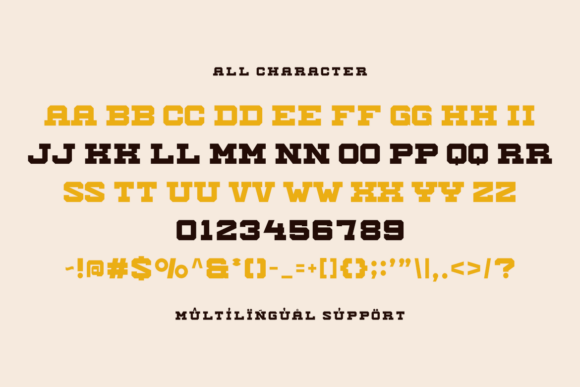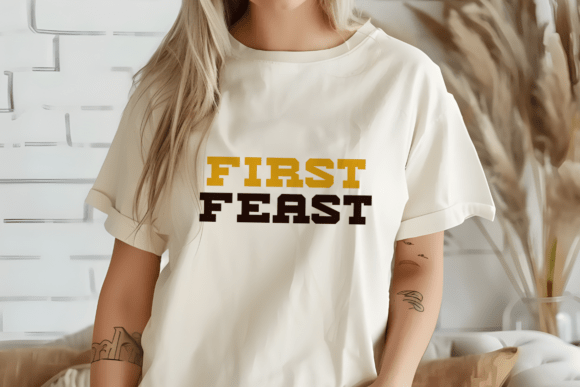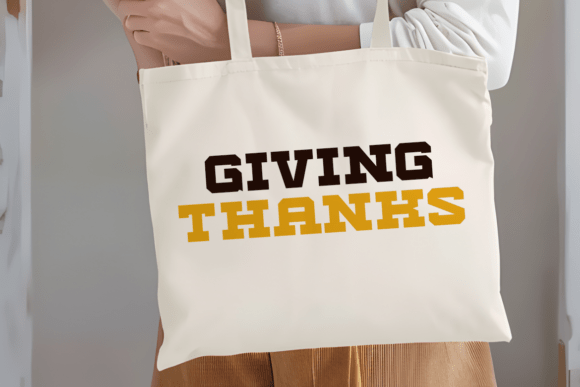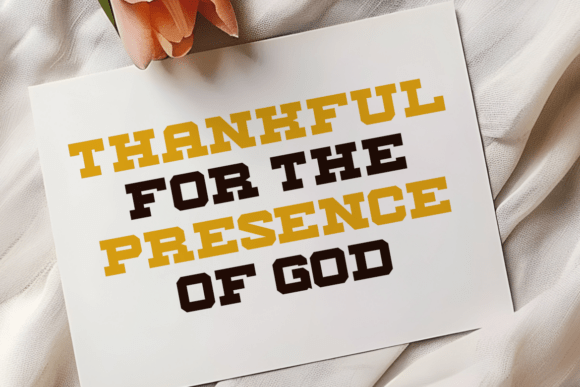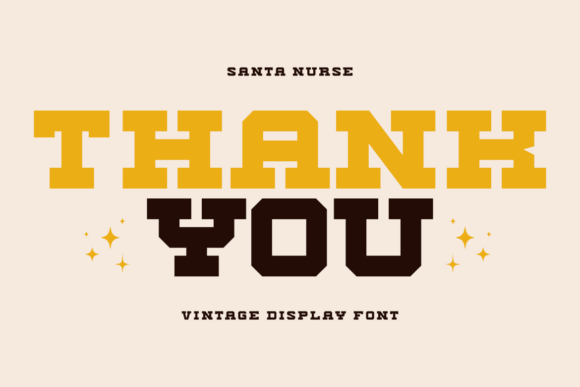
Introduction to Santa Nurse Font
Remember the excitement of designing a new holiday project, scouring through fonts to find the perfect one to capture the festive spirit? For many designers, that moment of inspiration often comes when stumbling upon a unique and high-quality font that elevates their creative project to the next level. The Santa Nurse Font is one such treasure, bringing a nostalgic charm to holiday designs with its varsity-inspired aesthetic.
Perfectly engineered for the Print-on-Demand market, this heavy slab-serif typeface is designed to thrive on textured products like hoodies, scrubs, and tote bags, making it an instant favorite among Cricut and Silhouette users. Whether you’re creating “Ugly Christmas Sweaters,” nurse-themed holiday apparel, or retro sports merchandise, the Santa Nurse Font is an invaluable design resource that’s sure to add a touch of old-school spirit to your Christmas collection.
Key Features of Santa Nurse Font
- Unique and playful design, ideal for creative projects
- High-quality vector graphics with transparent background
- Font size: scalable, resolution-independent
- Perfect for holiday-themed designs, greeting cards, and gift tags
- Designed to add a touch of whimsy and charm to your designs
Honest Review: Santa Nurse Font
I recently had the opportunity to work with the Santa Nurse Font, and I must say it was a delightful experience. This font is a great addition to any creative project that requires a touch of whimsy and charm. The high-quality design is evident in every detail, making it a wonderful resource for designers.
- Unique design aesthetic that adds a touch of personality to any project
- High-quality design that is evident in every detail
However, I did encounter a few limitations: ⚠️
- The font is quite ornate, which can make it difficult to read in certain contexts
- The character set is limited, which may not be suitable for longer texts
Overall, I’m quite impressed with the Santa Nurse Font. While it may have some limitations, its unique design aesthetic and high-quality design make it a valuable resource for designers.
Tips for Getting the Most Out of Santa Nurse Font
Use the Santa Nurse Font in combination with a transparent background for a unique and eye-catching design. Experiment with different font sizes and styles to add emphasis to your text. Use the Santa Nurse Font in conjunction with other design resources such as images and graphics to create a cohesive and professional design.
The Santa Nurse Font is ideal for use in various creative projects such as holiday-themed designs, medical-themed designs, and children’s designs. It is also suitable for use in presentations and documents that require a high-quality and professional font.